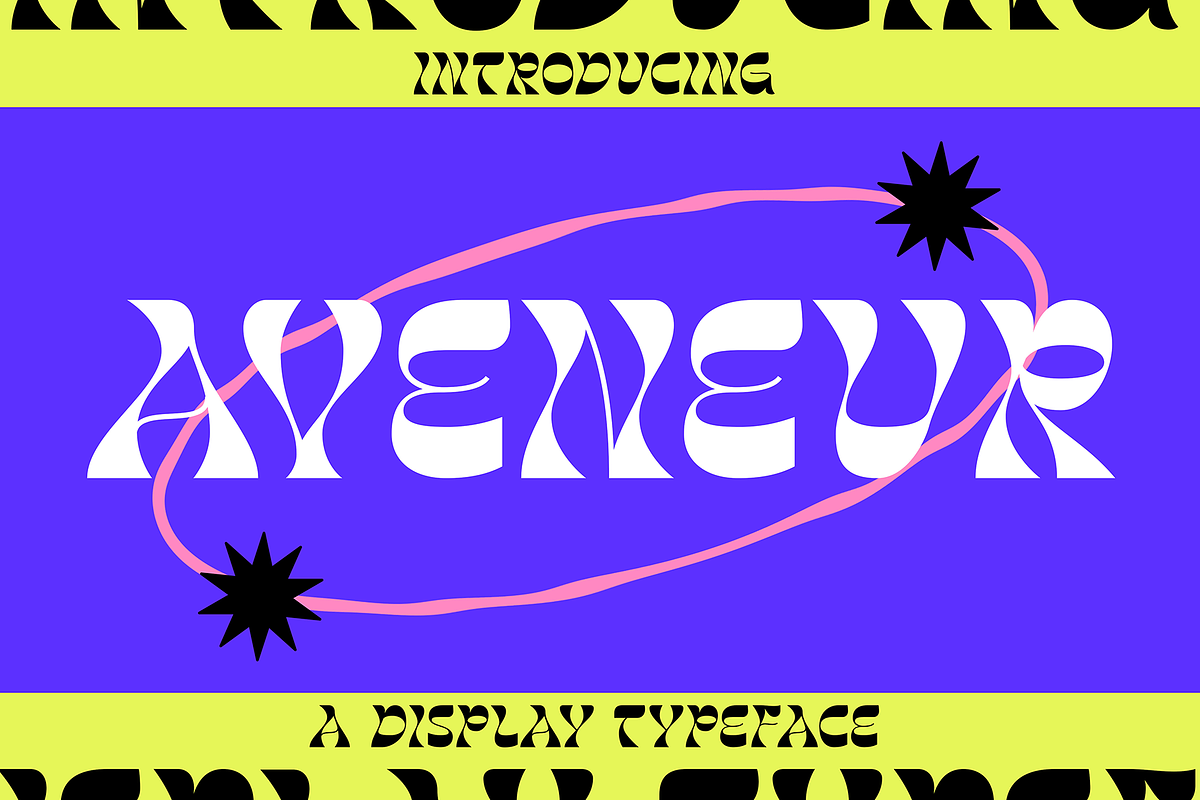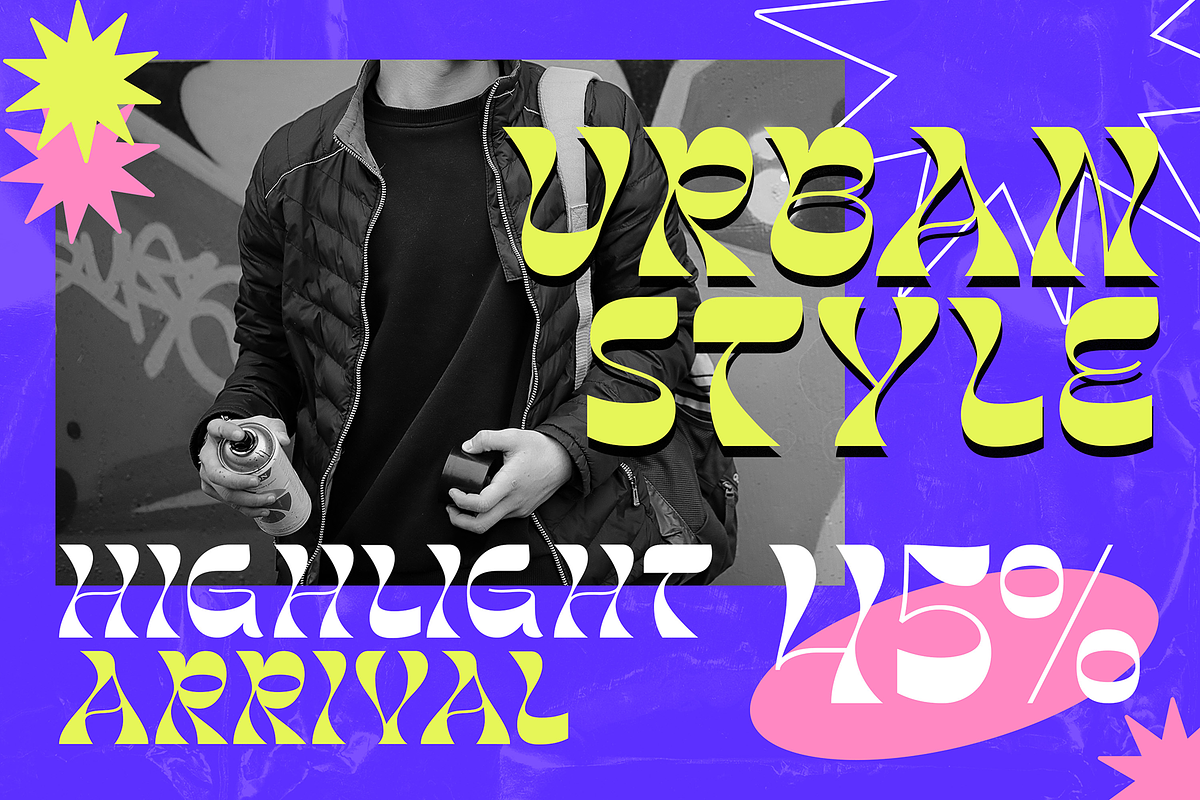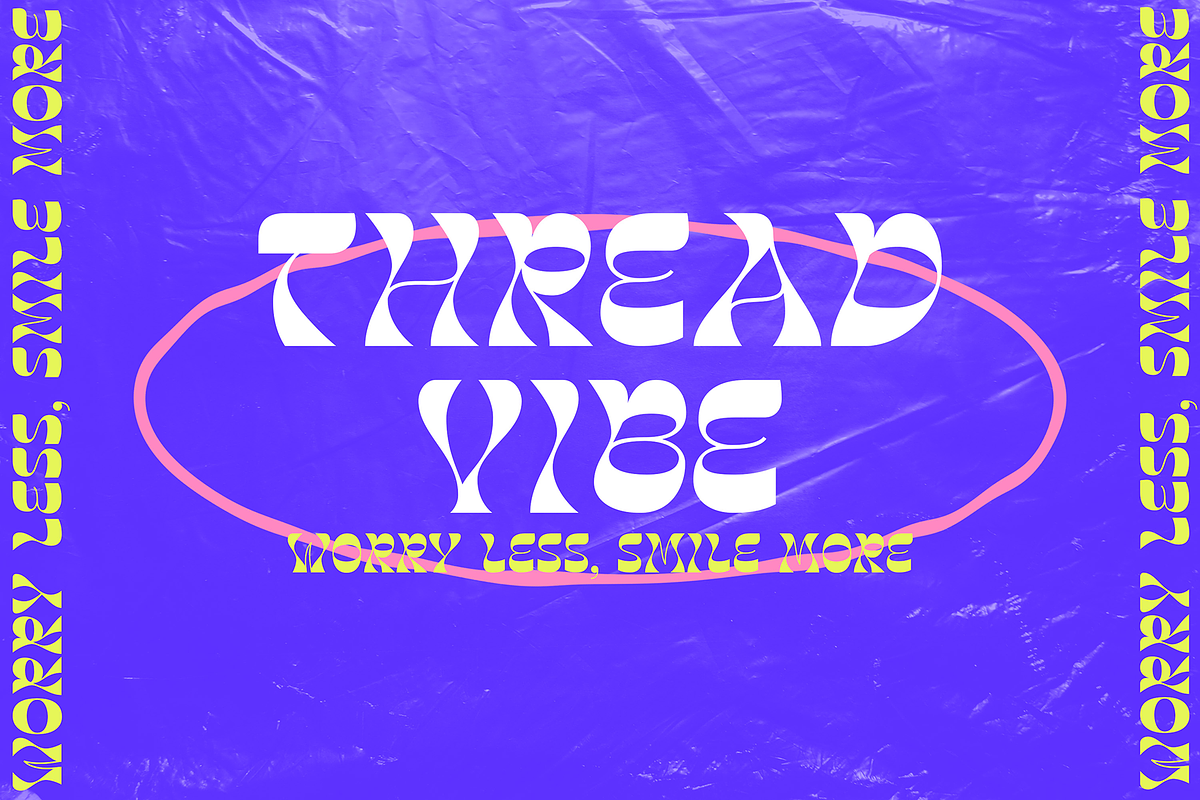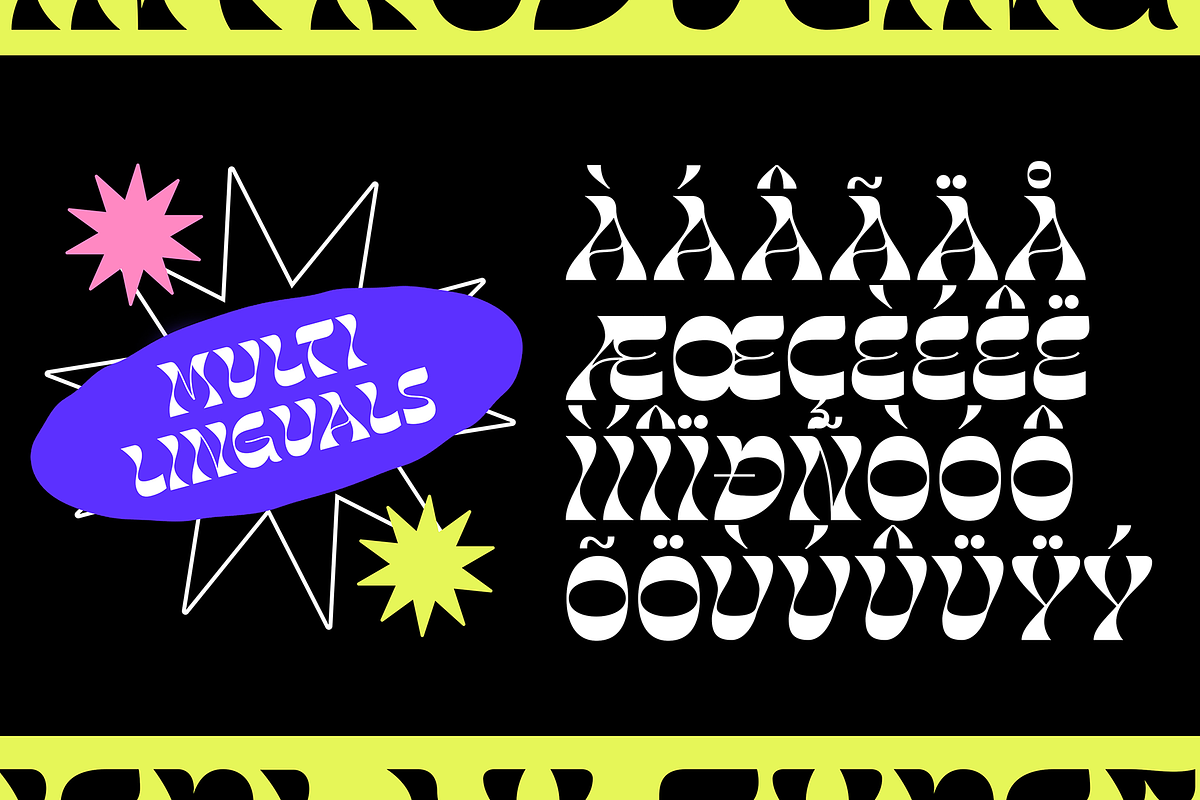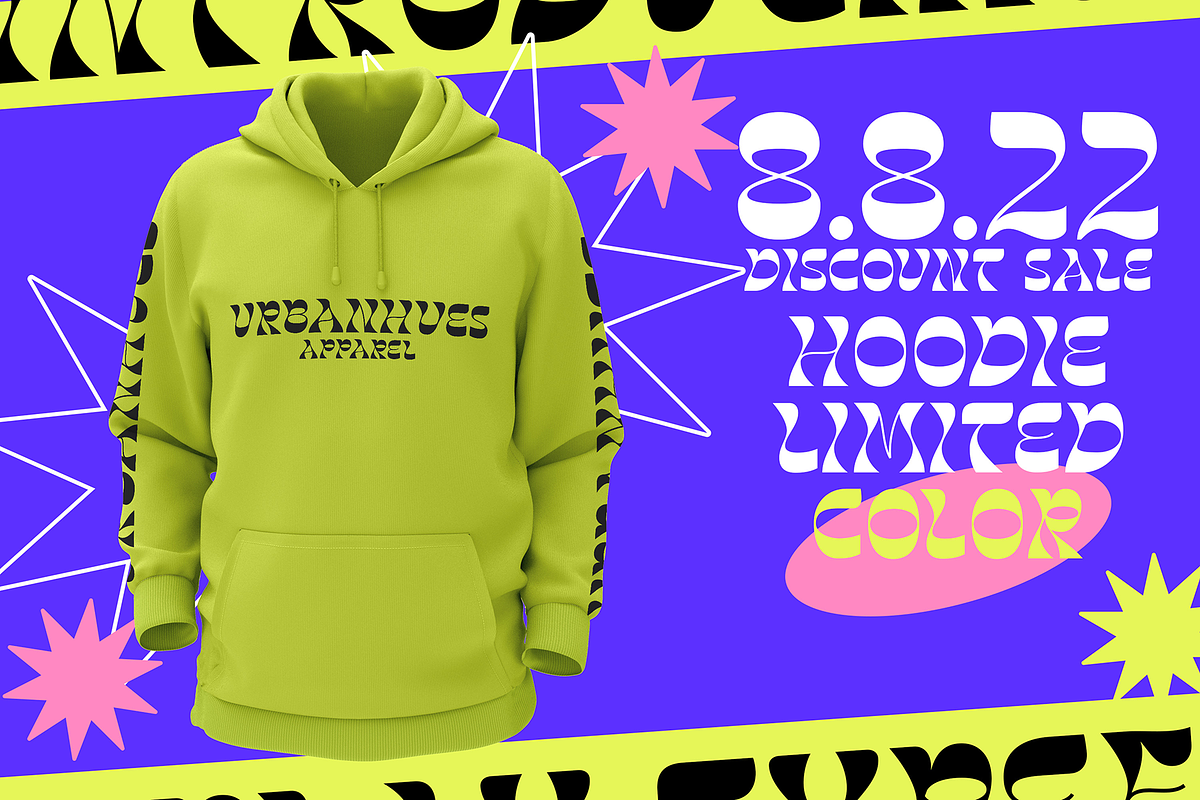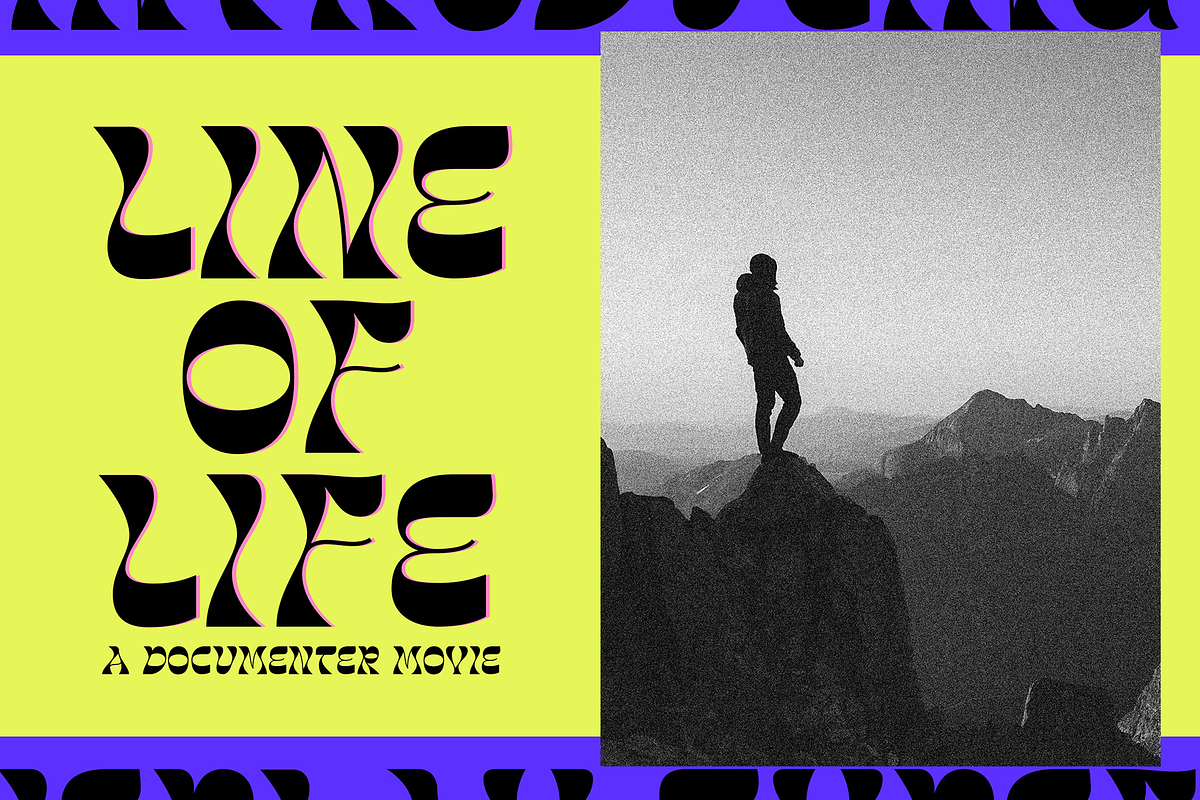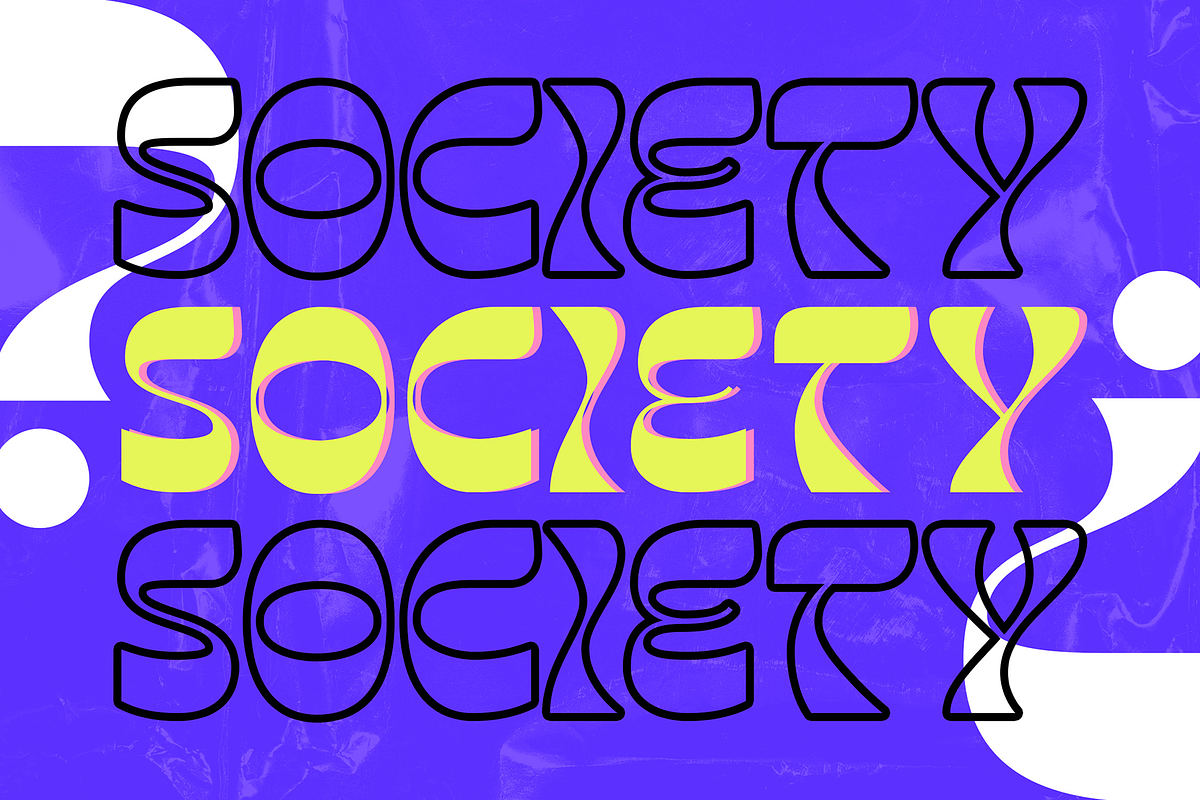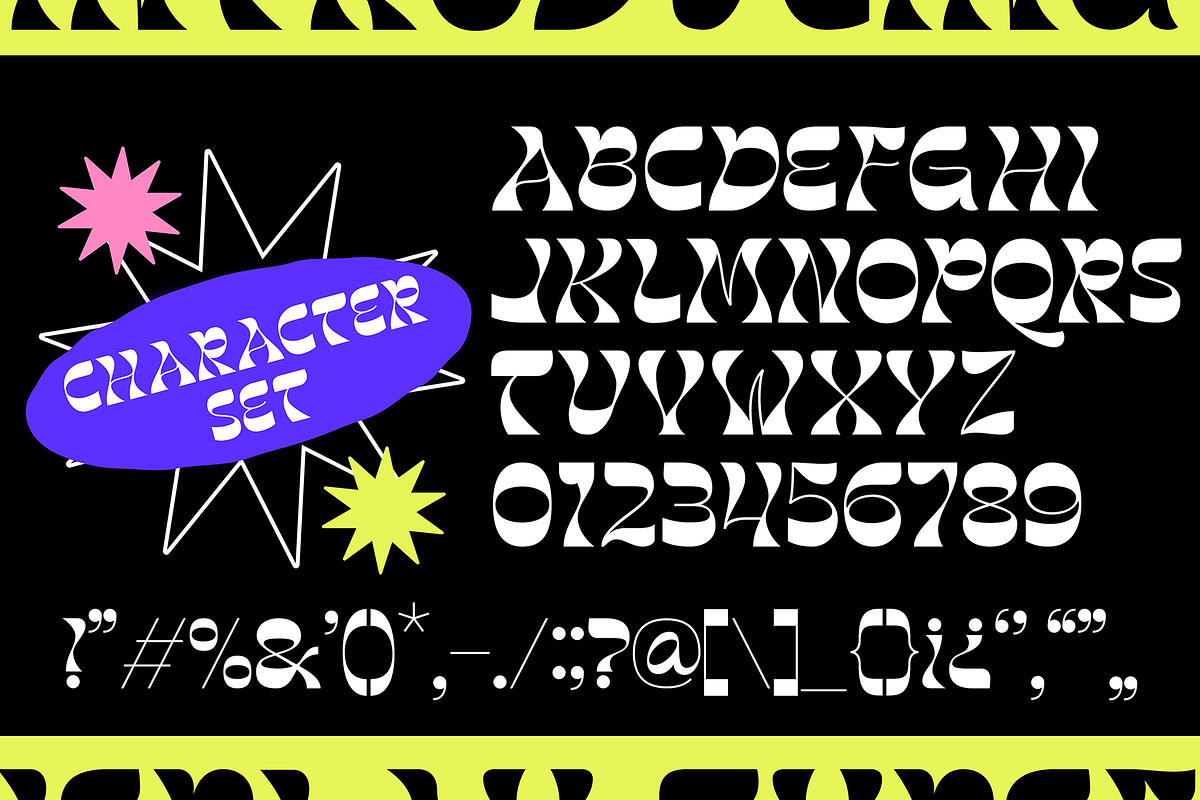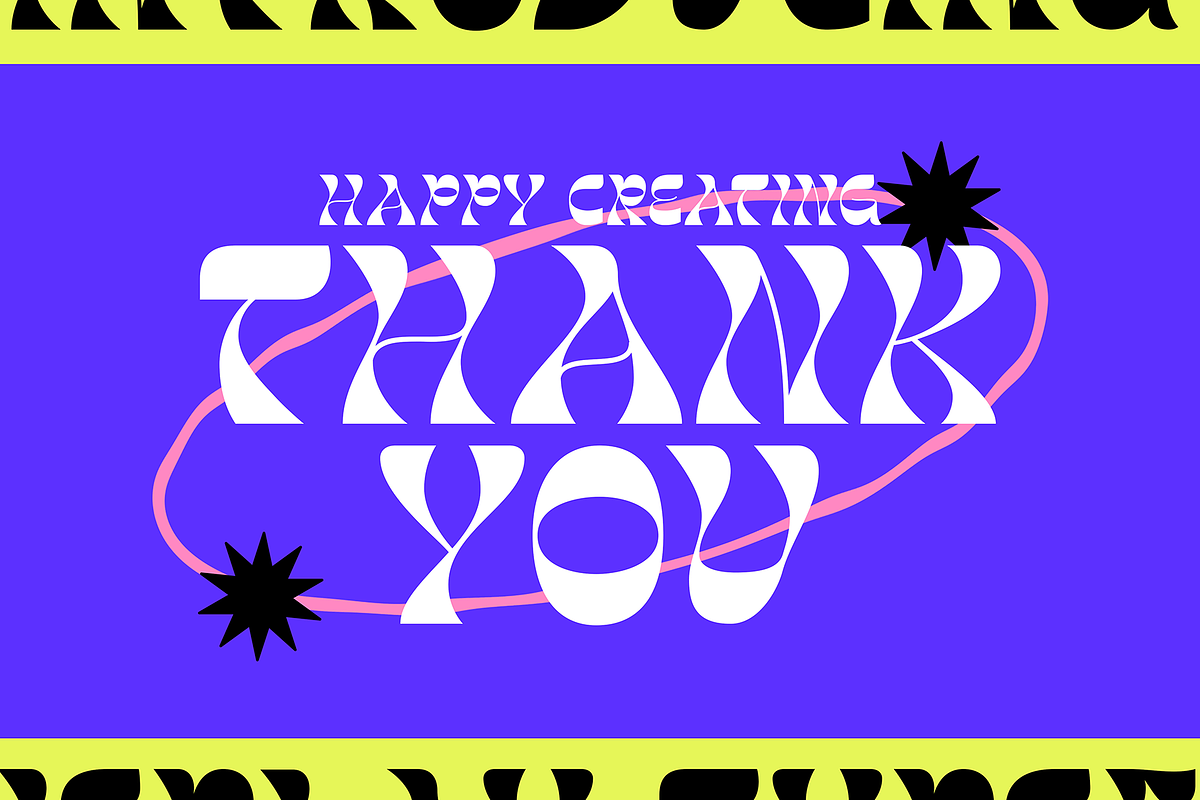
Aveneur - Unique Display
Aveneur - Unique Display, Inspired by Modern logos of brands that have very strong characteristics, very suitable for posters, packaging, branding, logotype, and more.
Avaneur font with strong and challenging nuances. very suitable for the title, typography, Poster, magazines, brochures, packaging, Websites, and much more for your design needs, making your designs more modern and professional